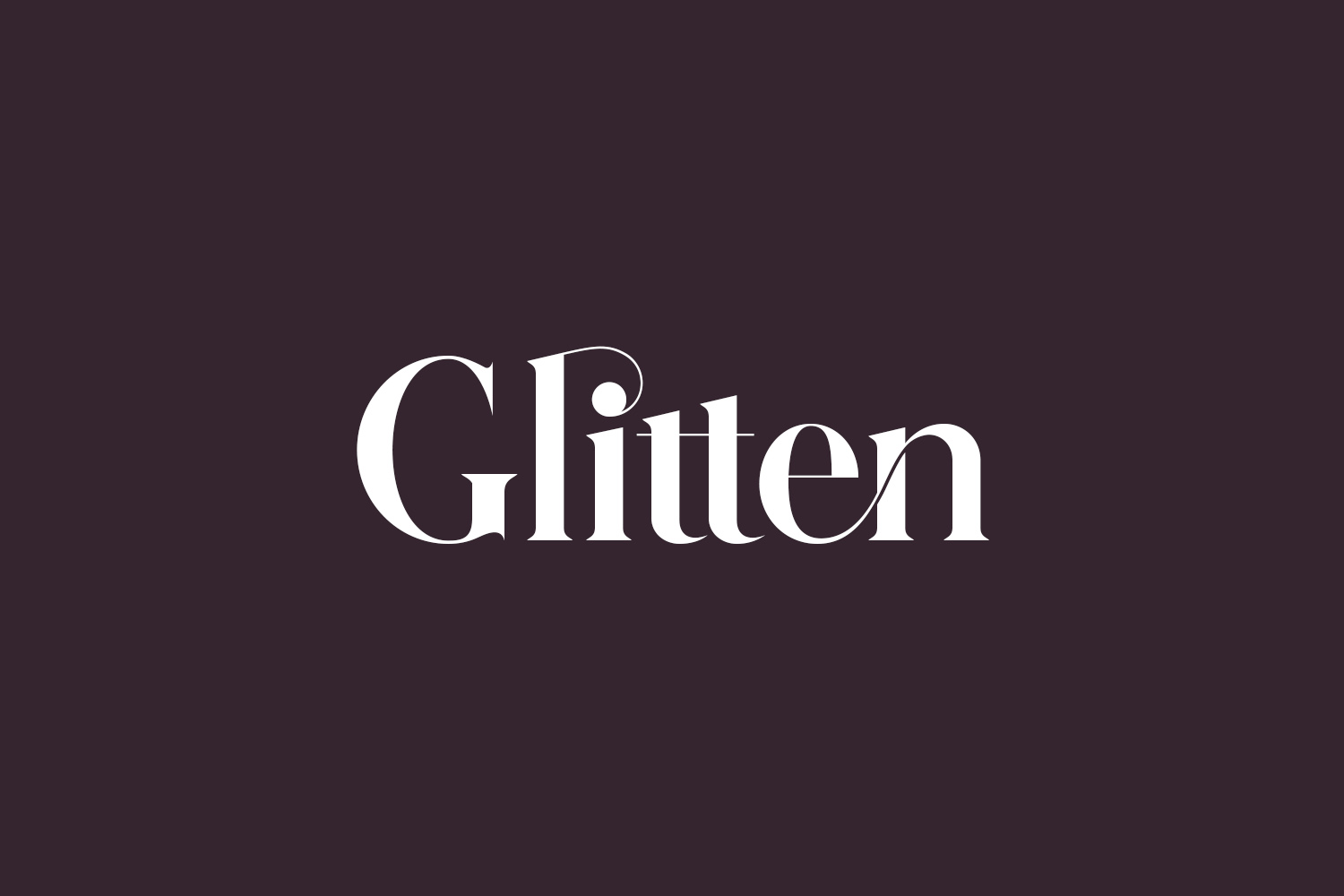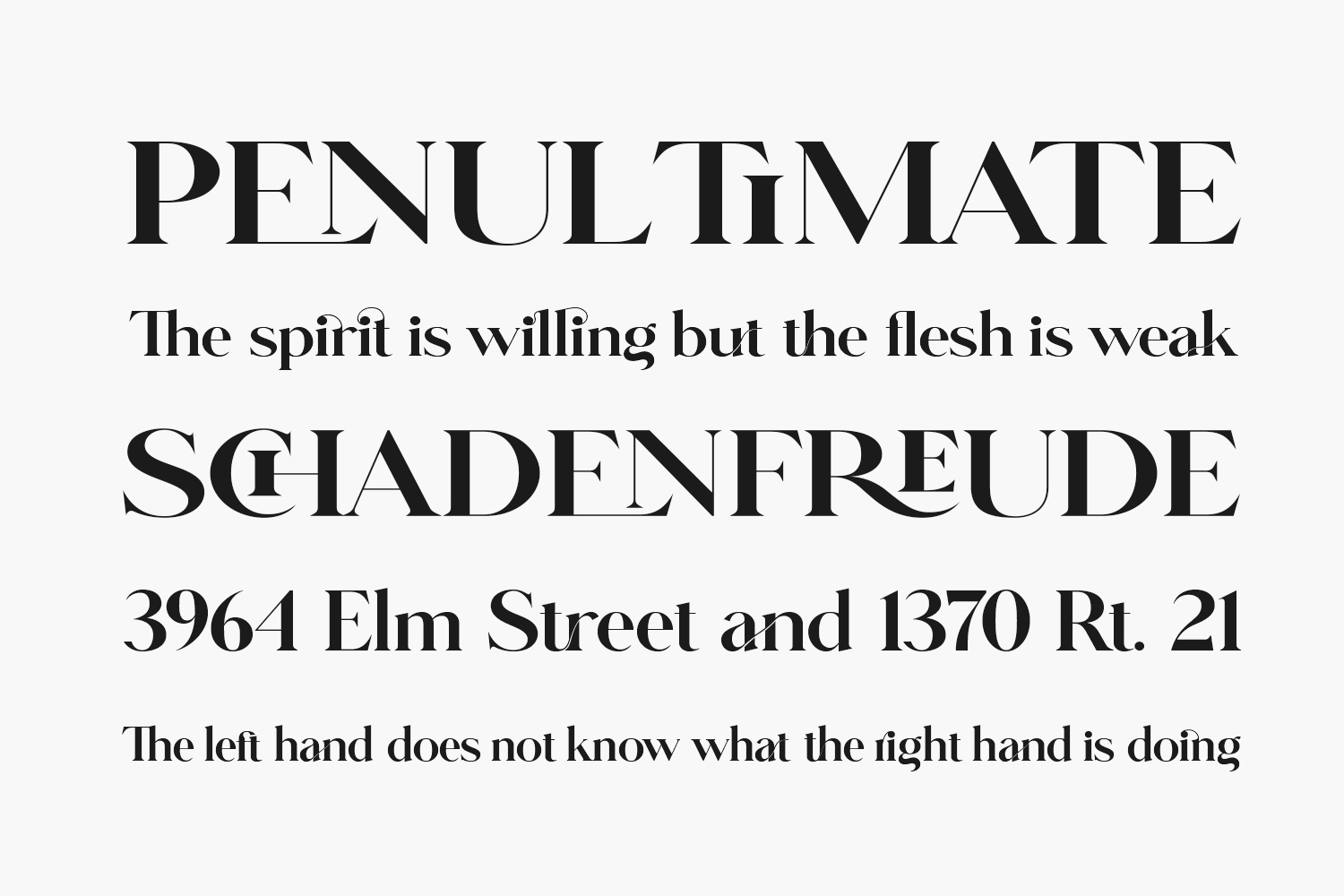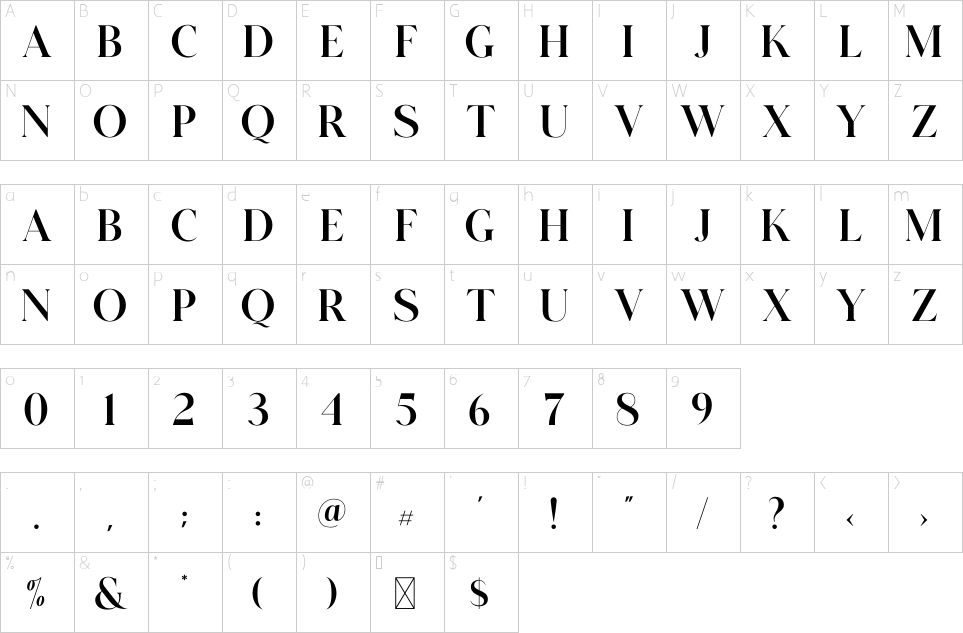
Glitten Regular Font - Introducing the modern glitten ligature serif font is a elegant and classy serif typeface. 213,394 downloads (118 yesterday) free for. By installing or using this font, you are agree to the product. Glitten à € by brandsemut.
Introducing The Modern Glitten Ligature Serif Font Is A Elegant And Classy Serif Typeface.